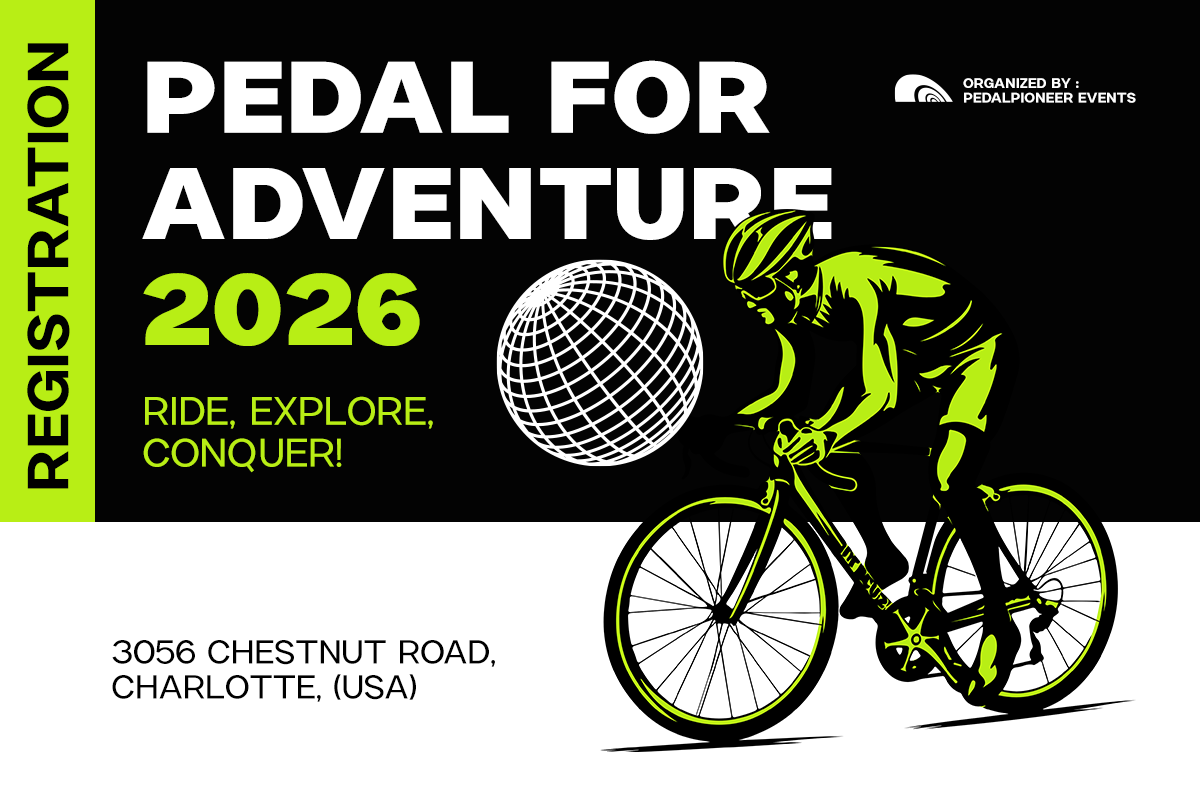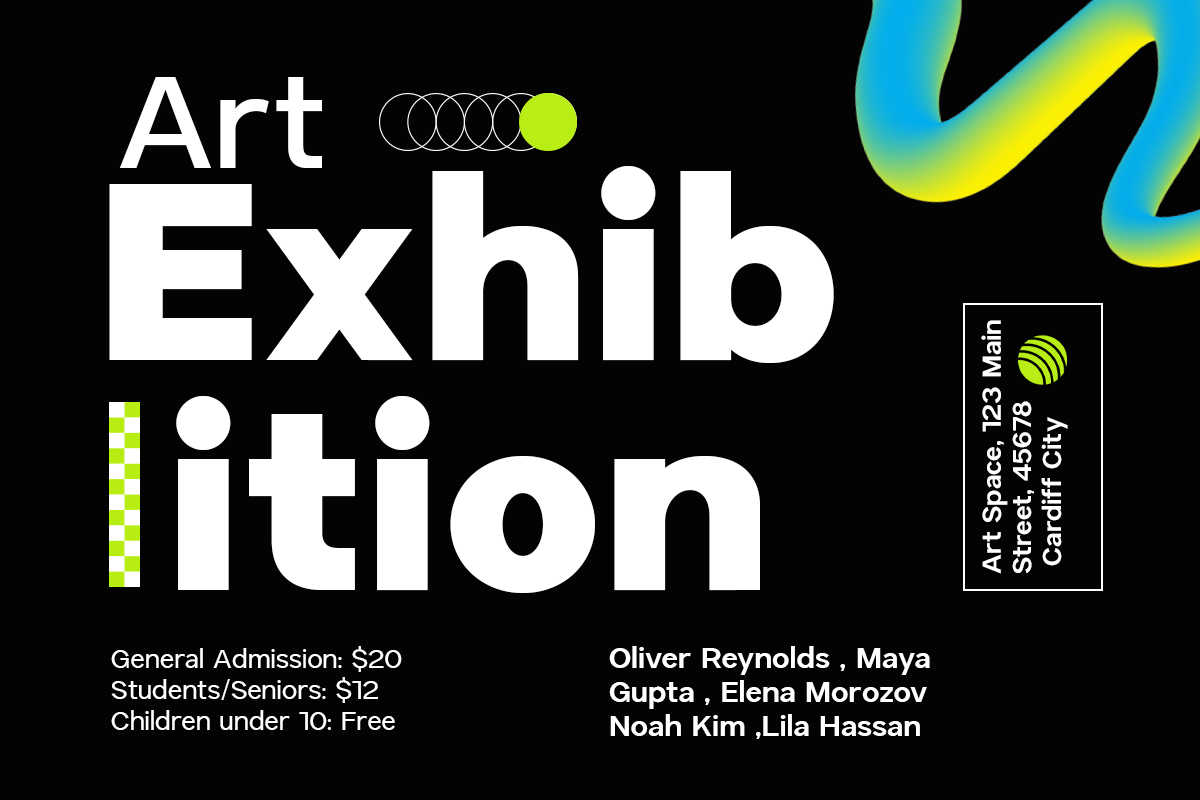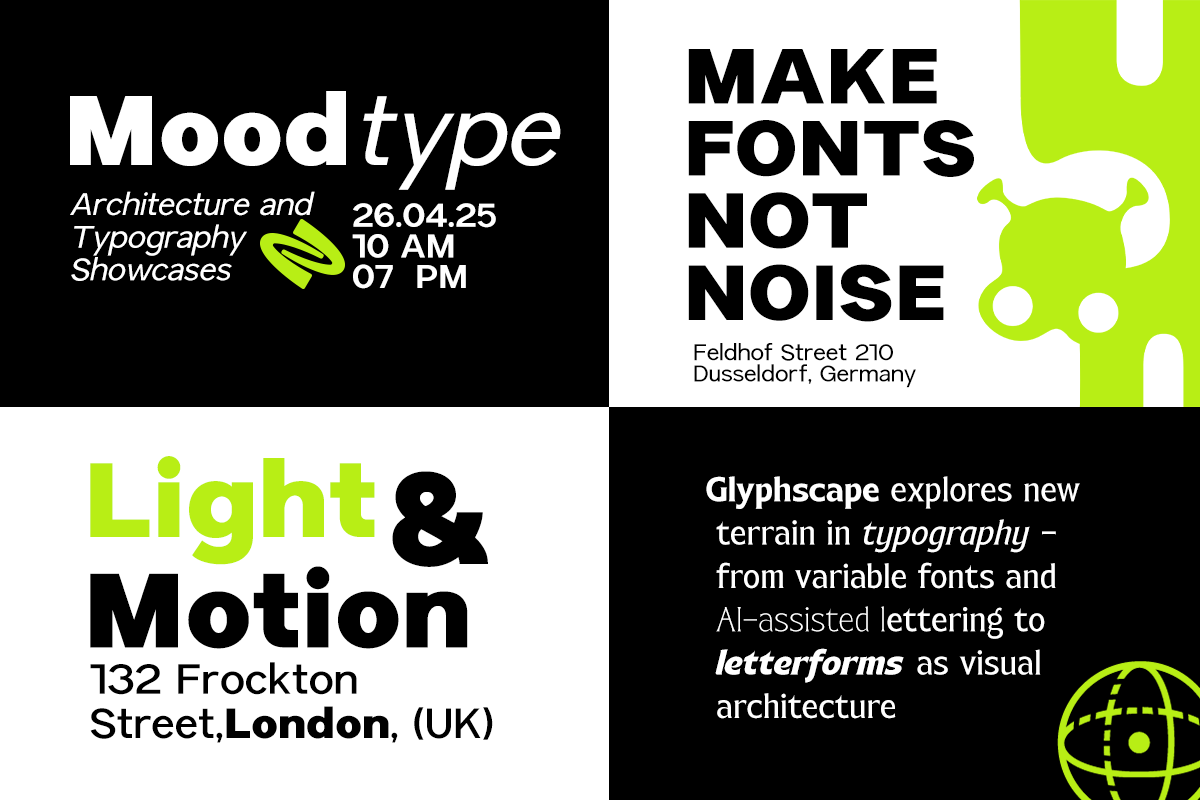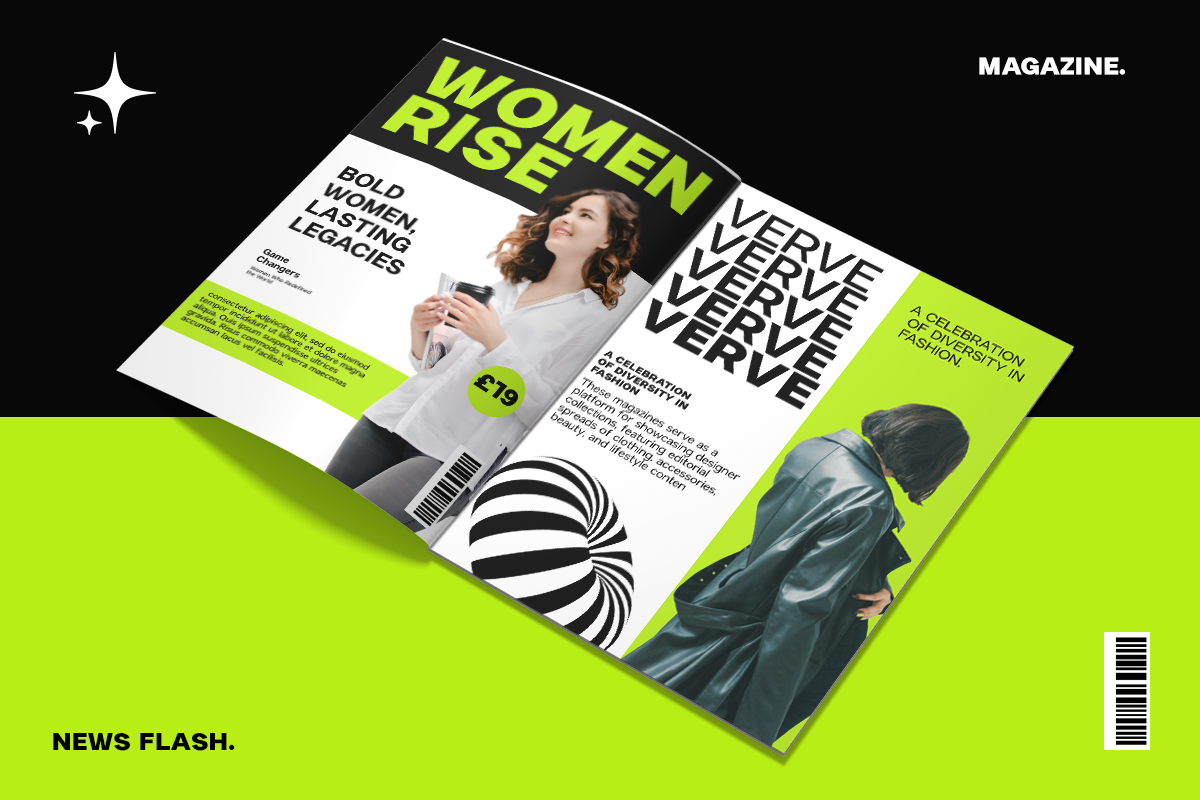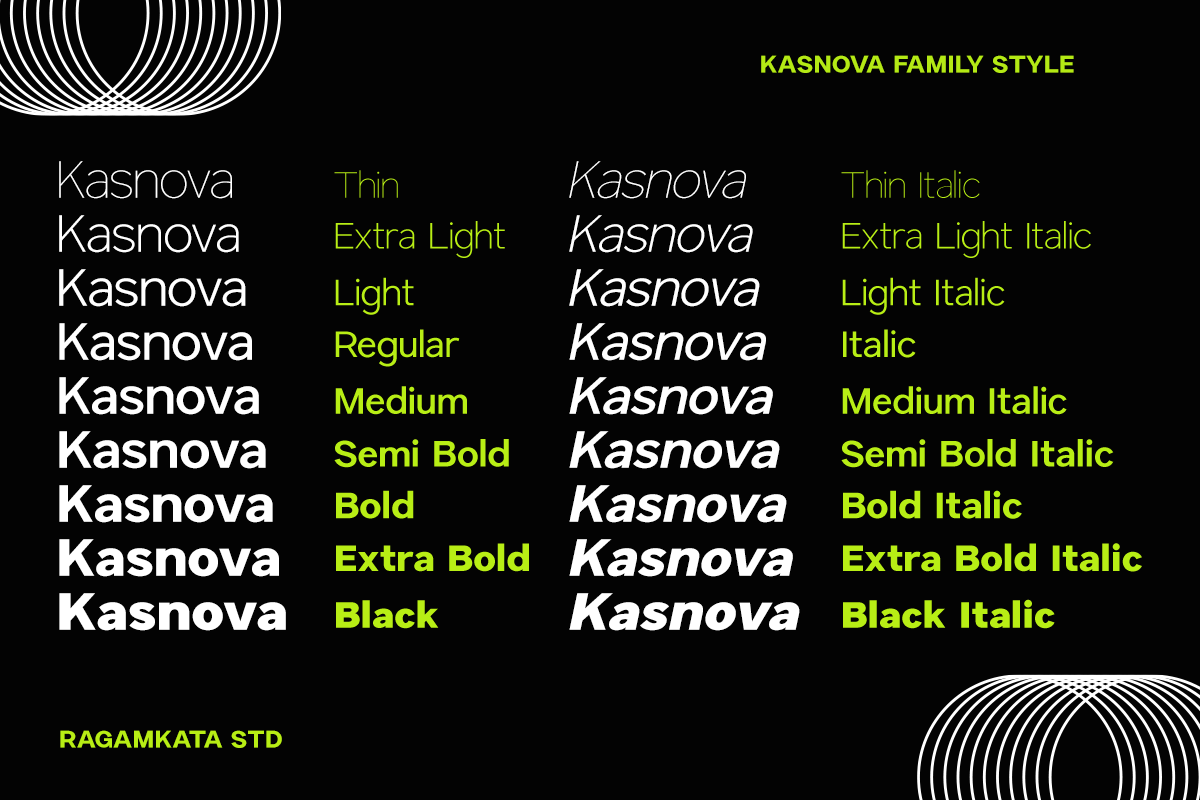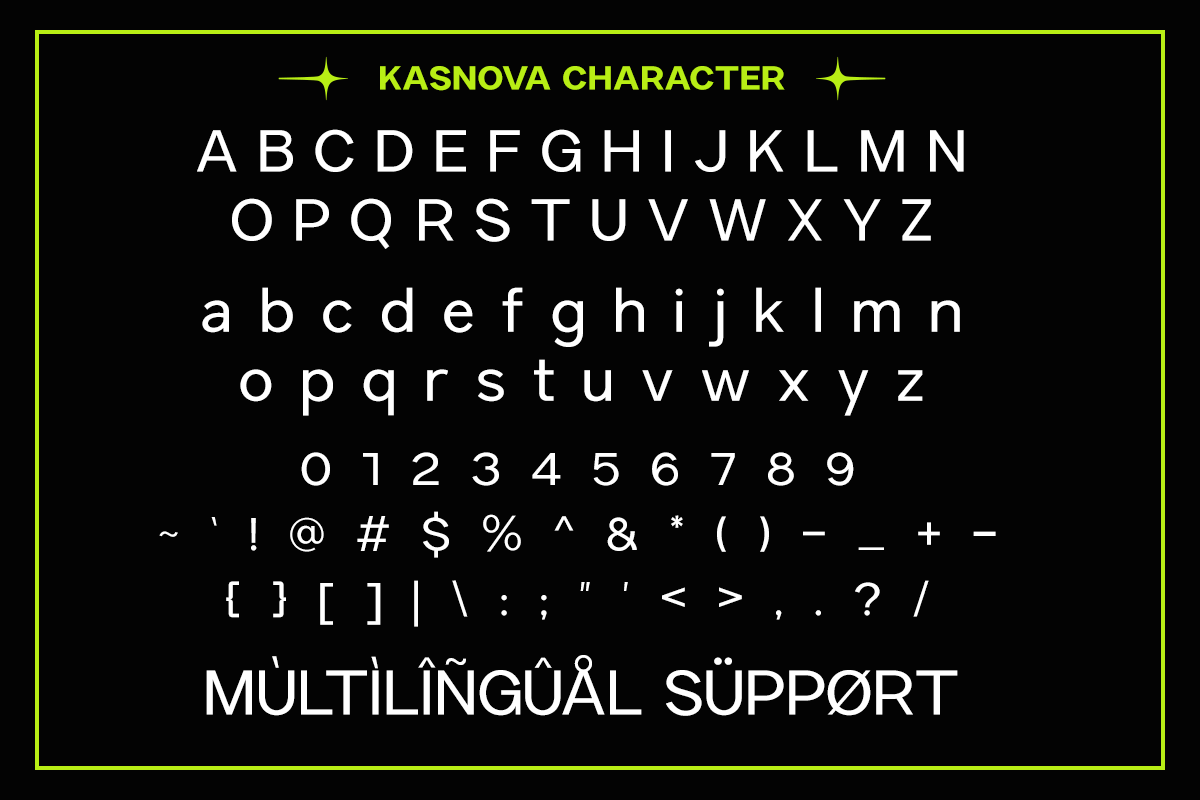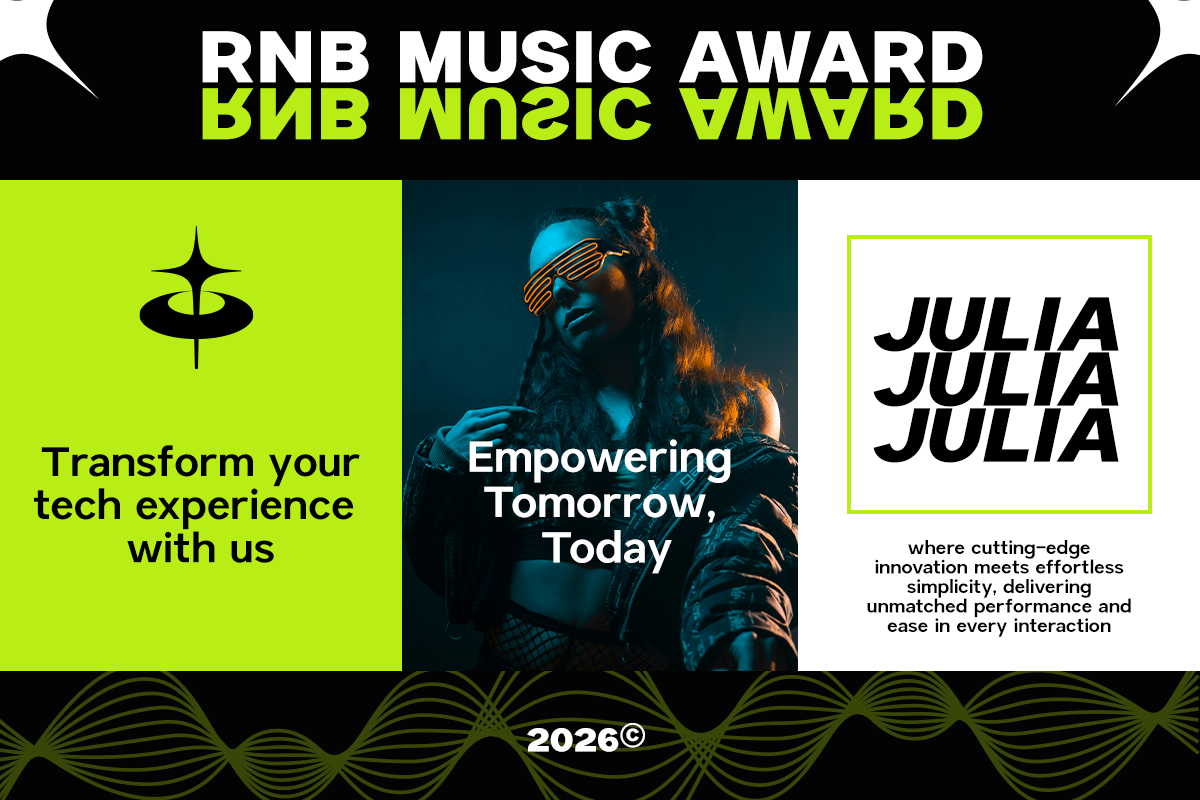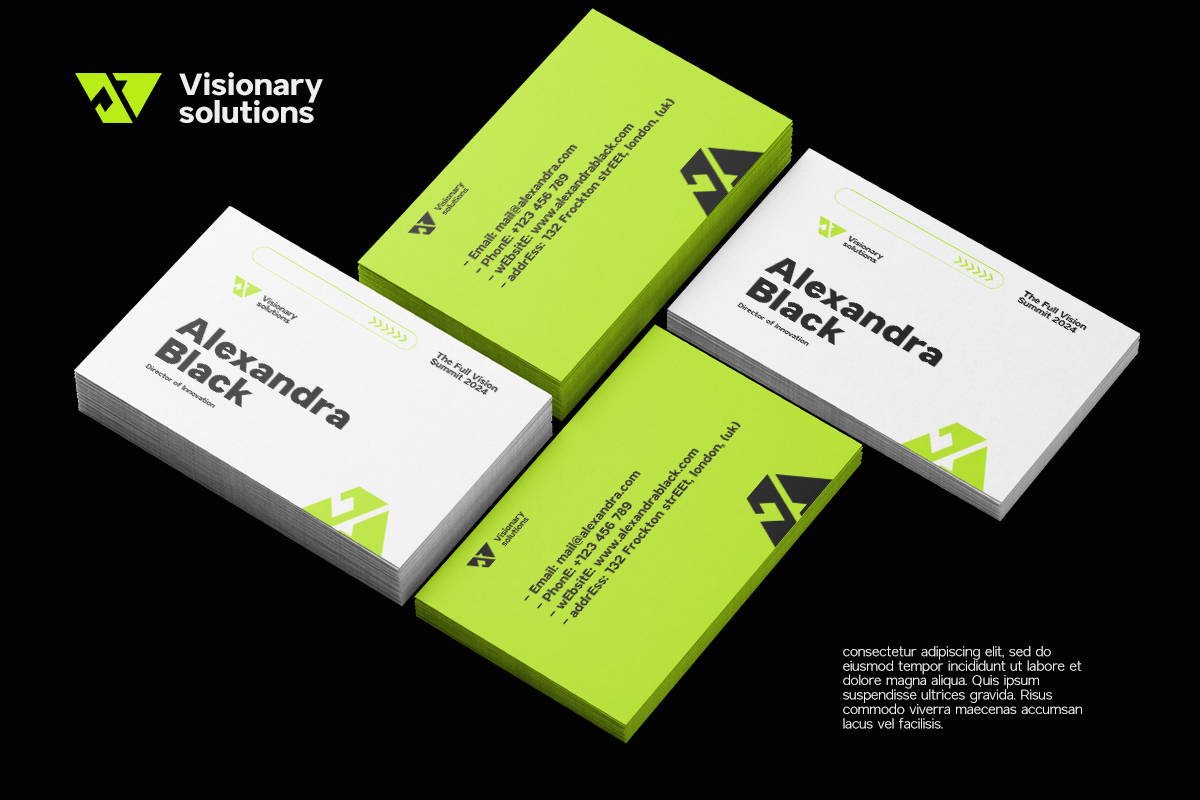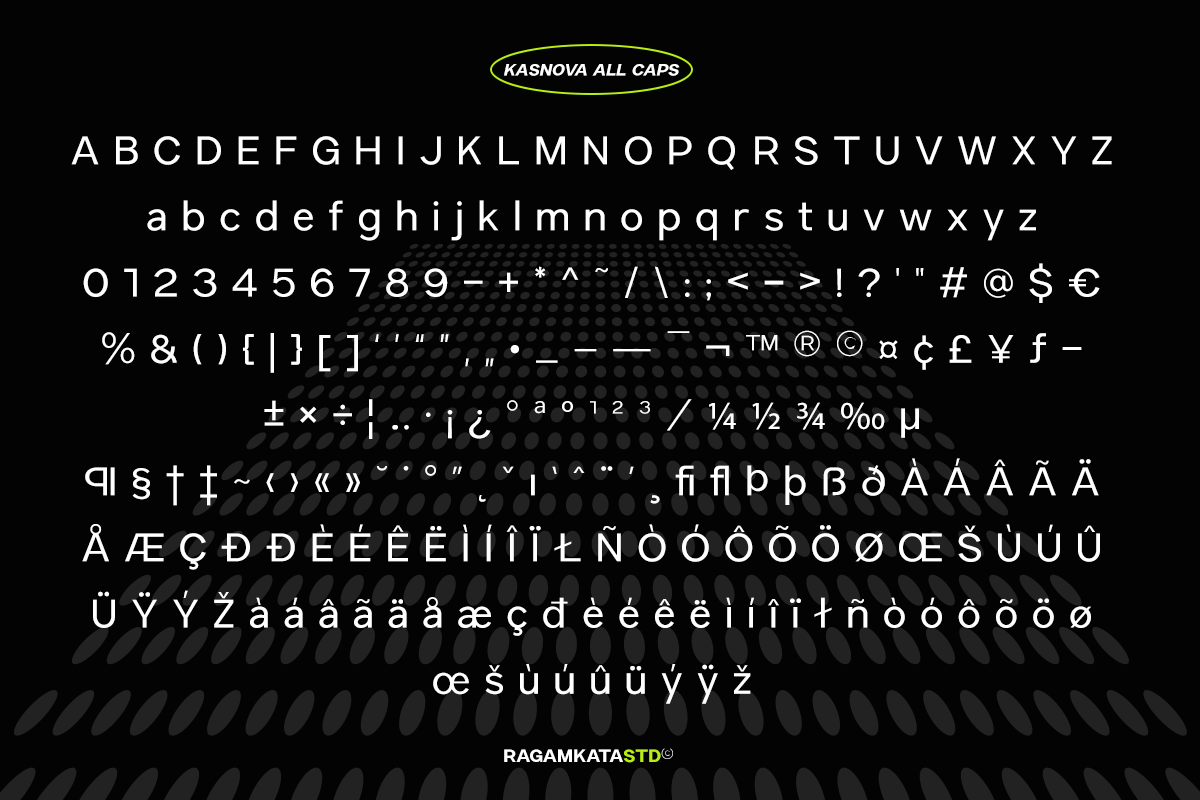
Kasnova - Sans Serif Family
Kasnova is a modern sans serif family typeface designed to deliver clarity, versatility, and contemporary visual impact. Built with clean geometric construction and balanced proportions, Kasnova offers a smooth reading experience while maintaining a strong modern character. With a wide range of weights from Thin to Black, this font family provides full typographic control for both minimal layouts and bold visual statements.
Crafted for designers, creative studios, content creators, and marketing professionals, Kasnova delivers a flexible typographic system suitable for a wide spectrum of creative applications. From branding and logo design to editorial layouts, websites, social media graphics, UI interfaces, and digital advertising, this typeface ensures excellent readability while preserving a sleek and professional appearance across all media.
Whether you're building startup identities, corporate branding, web interfaces, packaging designs, posters, presentations, or modern editorial projects, Kasnova helps elevate your visuals with a clean, confident, and contemporary style. Its versatility, wide weight range, and modern aesthetics make Kasnova a reliable choice for projects that demand consistency, scalability, and strong visual performance.